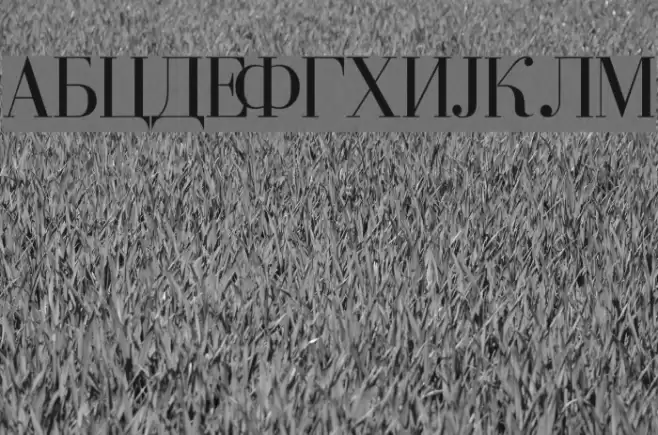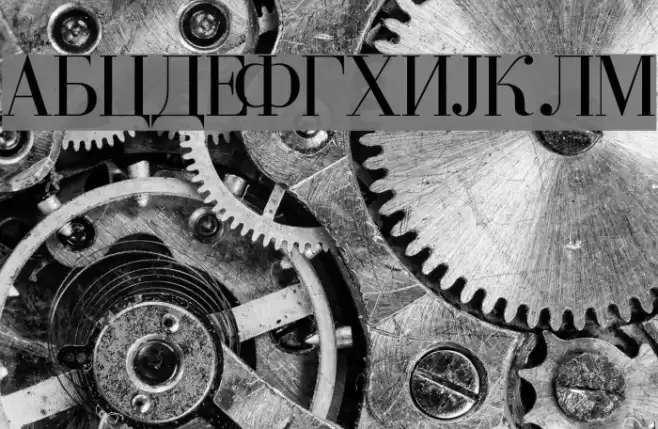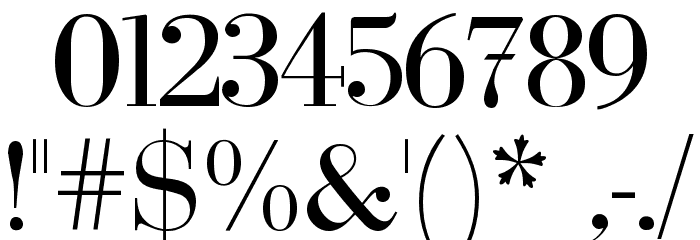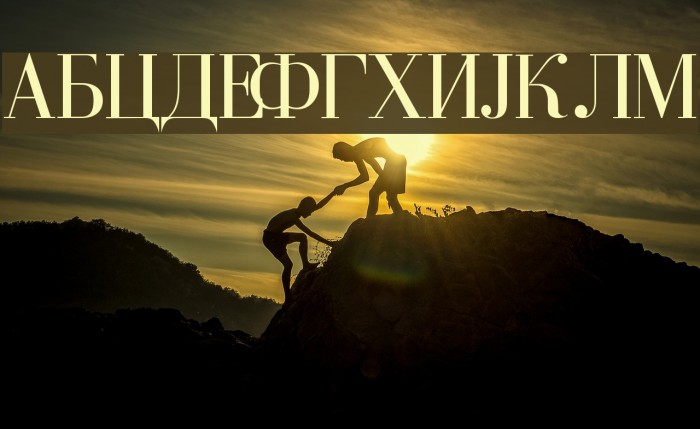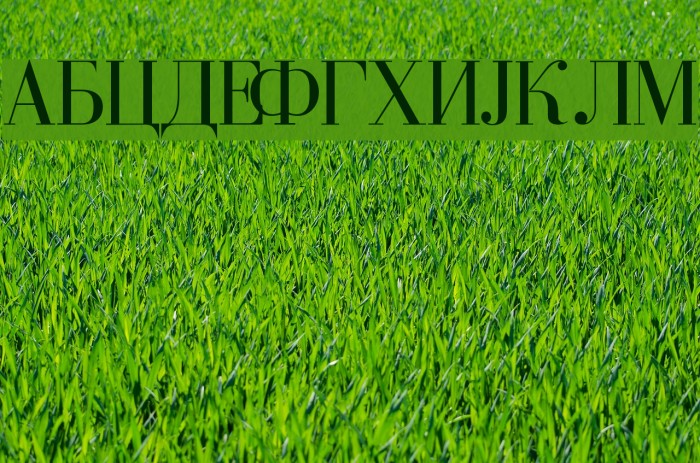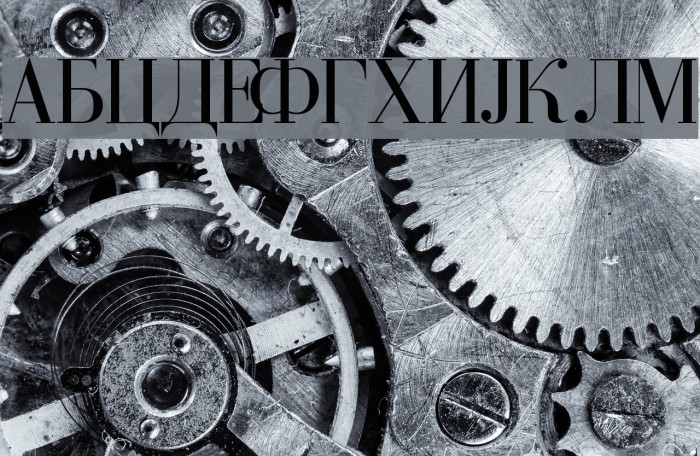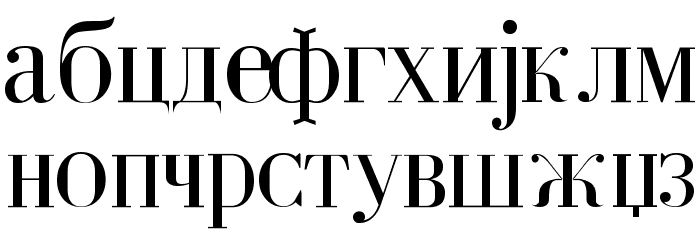
Serbian-Courier Font
Serbian-Courier Description
This font features a distinct and elegant style with a high contrast between thick and thin strokes, giving it a sophisticated and classic appearance. The serifs are pronounced, adding to its formal aesthetic. The uppercase letters are bold and commanding, while the lowercase letters maintain a graceful flow. The numerals are clear and easy to read, with a consistent design that matches the overall style. Special characters are well-integrated, maintaining the font's cohesive look. This font's design is suitable for projects that require a touch of elegance and formality.
A high-contrast serif font with elegant, classic styling from Uncategorized fonts.
- Proposed Projects: Ideal for formal invitations, editorial design, luxury branding, and high-end product packaging.
- Overall Style: Classic
- Use Case: Headlines, Logos, Editorial design